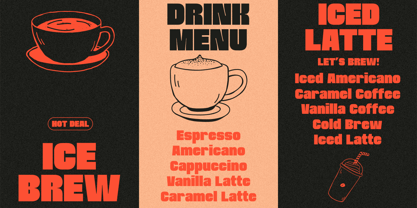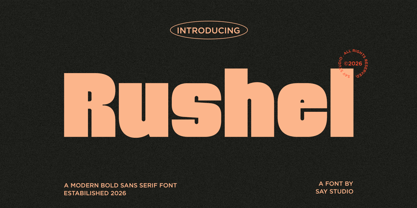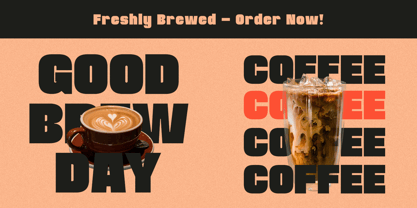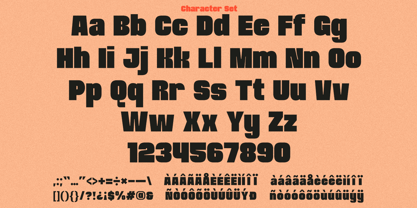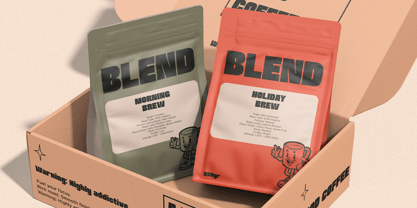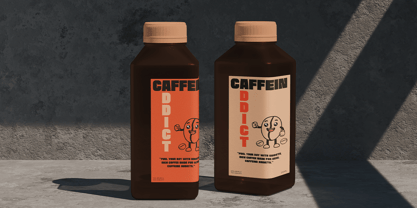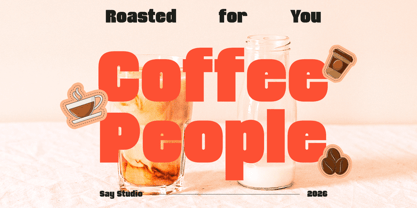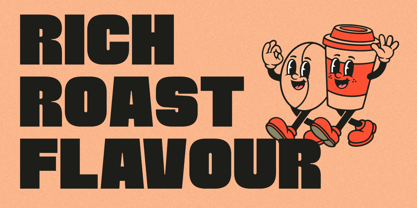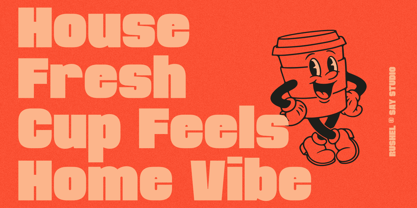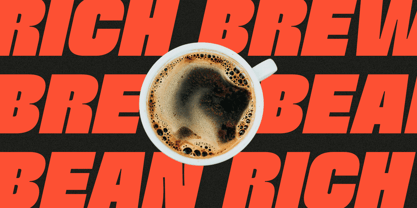
Rushel
The Rushel Font Family was designed by Mussyayin and published by Say Studio. Rushel contains 2 styles and family package options. More about this family
Rushel is a modern bold sans serif font designed for strong visual impact and contemporary branding. Its solid structure and confident proportions deliver a clean yet powerful presence that instantly captures attention. The bold weight and smooth curves create an ideal balance between strength and readability, making it highly versatile for various design applications. Perfect for high-visibility projects, Rushel excels in headlines, posters, logos, and digital content. Its modern aesthetic is well-suited for branding, tech visuals, streetwear, and advertising campaigns that require clarity and bold expression. Whether utilized in minimal layouts or vibrant compositions, Rushel stands out with a distinctive and professional edge. Featuring multilingual support and optimized spacing, Rushel ensures consistent performance across different languages and platforms. It is a reliable choice for designers aiming to create impactful visuals with a bold, modern identity.